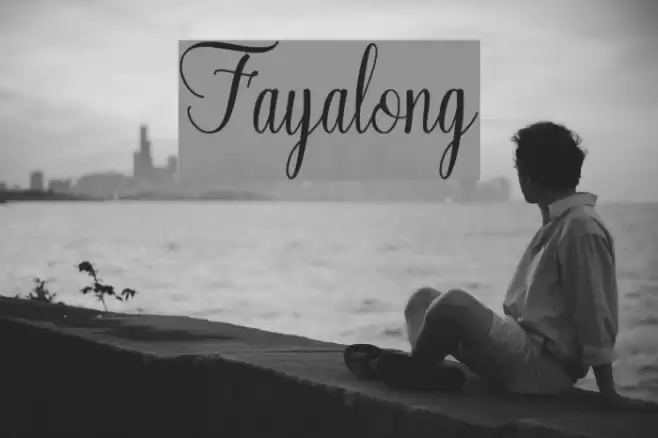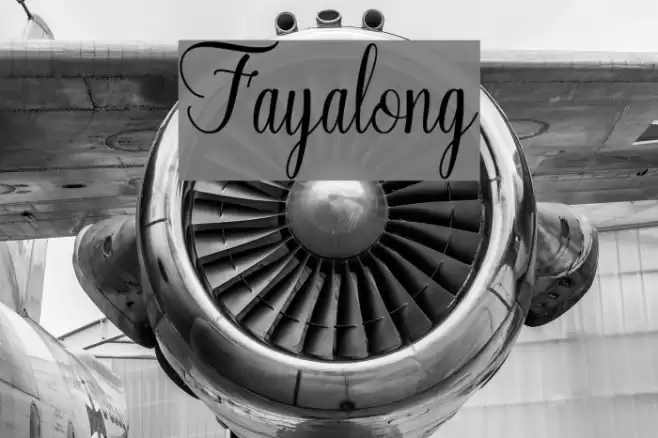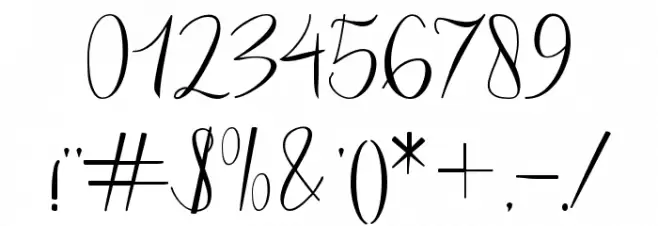
Fayalong Font
Fayalong Description
This elegant script font features a flowing, cursive style with intricate loops and flourishes. The uppercase letters are characterized by their tall, graceful forms and sweeping curves, while the lowercase letters maintain a consistent, fluid motion. The numerals are stylishly integrated into the overall design, complementing the alphabet with their own unique flair. Special characters are thoughtfully crafted to match the font's sophisticated aesthetic. This font exudes a sense of elegance and refinement, making it ideal for projects that require a touch of class and sophistication.
An elegant script font with flowing, cursive style and intricate flourishes from Uncategorized fonts.
- Proposed Projects: Ideal for wedding invitations, elegant branding, high-end product packaging, and sophisticated event posters.
- Overall Style: Elegant, Sophisticated
- Use Case: Logos, Invitations, Branding